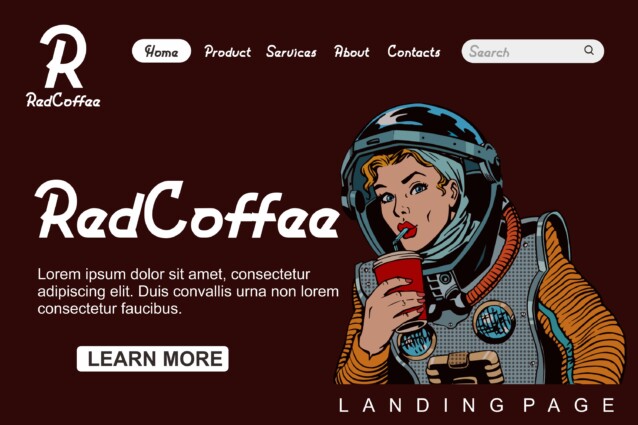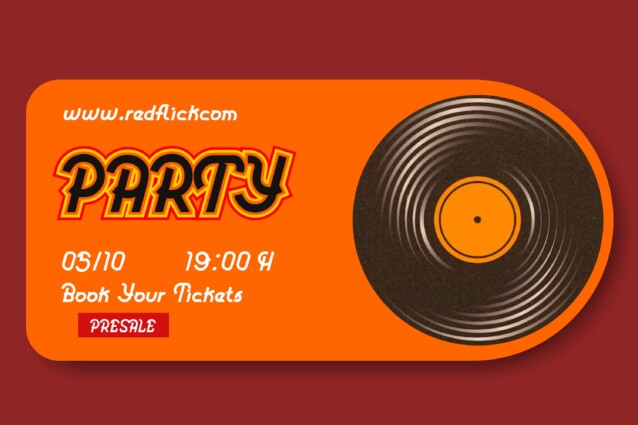
Redflick Font is an Asian inspired typeface. The form has a firm consistency. It’s great for headlines and titles, but also very easy to read in sentence form. It’s perfect for branding and packaging, books, invitations, and anything else you want in a casual setting — without being too childish.